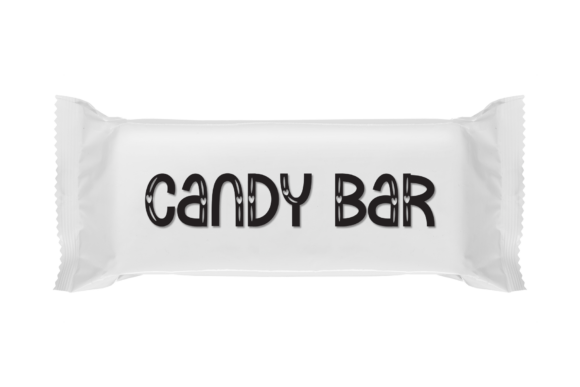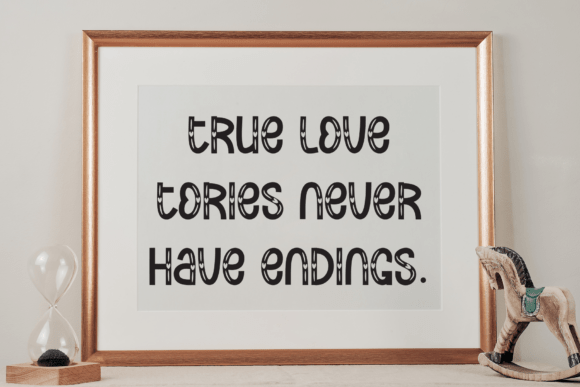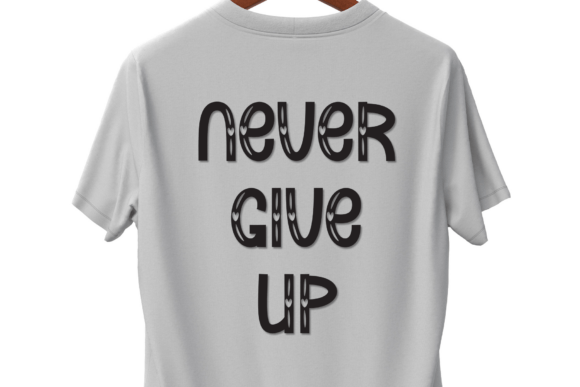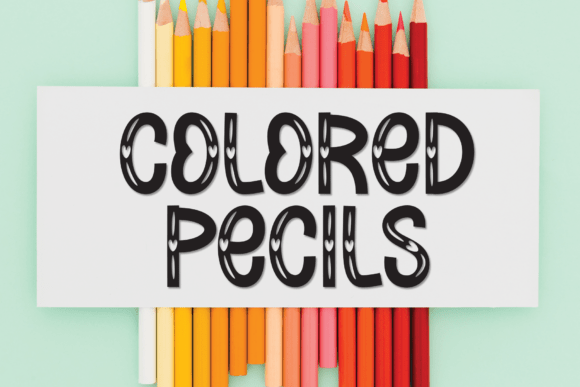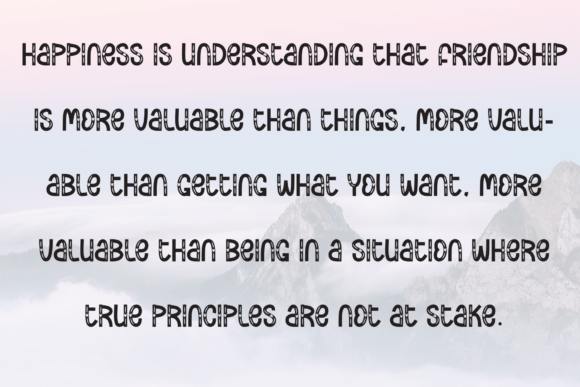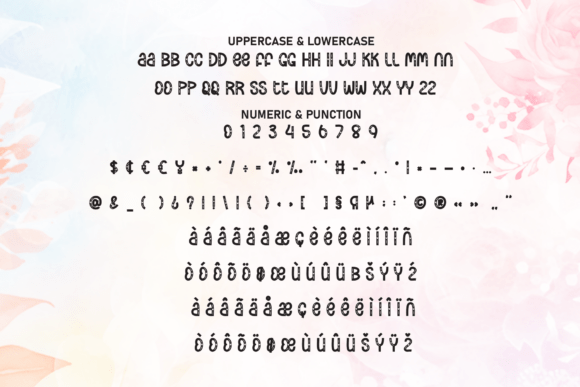
Introduction to Barbie Mockup Font
Do you remember the excitement of receiving a new art supply as a child? For many creatives, it’s a feeling that never fades. Perhaps you’re sitting at your desk, staring at a blank canvas or a computer screen, waiting for that spark of inspiration to strike. Suddenly, your eyes land on a font that catches your attention, and your imagination starts to run wild. This is exactly what happened when we discovered the Barbie Mockup Font, a sweet and friendly handwritten font that’s about to take your creative project to the next level.
This beautiful font is more than just a design resource – it’s a game-changer. With its natural and unique style, the possibilities are endless. Whether you’re working on a free download project or a high-quality design, the Barbie Mockup Font is the perfect addition to your toolkit. And with a transparent background, you can easily integrate it into your design without any distractions.
Key Features of Barbie Mockup Font
- High-quality design for creative projects, ideal for use as a design resource.
- Transparent background, allowing for seamless integration with various design elements.
- Comes in a single size, making it easy to use in various design contexts.
- Features a unique, stylized design inspired by the iconic Barbie brand, adding a touch of whimsy to any creative project.
Honest Review: Barbie Mockup Font
I recently came across the Barbie Mockup Font and was excited to dive in and see what it had to offer. As a designer, I’m always on the lookout for high-quality design resources that can elevate my creative projects.
Here are some of the things that work well with this font:
- ✨ High-quality design: The font is crisp, clean, and looks great on a variety of backgrounds.
- ✨ Transparent background: This makes it easy to place over other images or textures without any hassle.
However, there are a few limitations to be aware of:
- ⚠️ Limited customization options: While the font looks great on its own, there aren’t many options for customizing it to fit your specific design needs.
- ⚠️ May not be suitable for all projects: Depending on the type of design project you’re working on, this font may not be the best choice.
Overall, I think the Barbie Mockup Font is a solid addition to any designer’s toolkit. While it may not be perfect, it’s a great free download that can be used for a variety of creative projects. Just be aware of its limitations and use it accordingly.
How to Use Barbie Mockup Font
To get the most out of the Barbie Mockup Font, use it on a transparent background to create a high-quality design. Experiment with different font sizes and styles to add creativity to your project.
The Barbie Mockup Font is ideal for creative projects, such as:
- Designing marketing materials
- Creating social media graphics
- Developing branding materials
Yes, the Barbie Mockup Font is designed with a transparent background, making it perfect for creative projects that require a clean and modern look. This feature allows for easy layering and compositing in your design software.
Can I edit the Barbie Mockup Font to suit my design needs?
Yes, the Barbie Mockup Font is a high-quality design resource that can be edited using various design software, including Adobe Illustrator and Photoshop. You can adjust the font’s size, color, and other attributes to suit your creative project’s requirements.